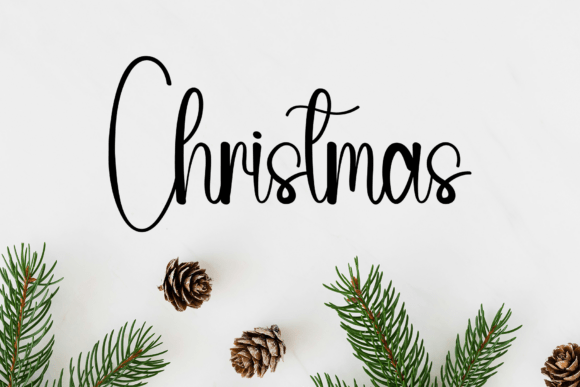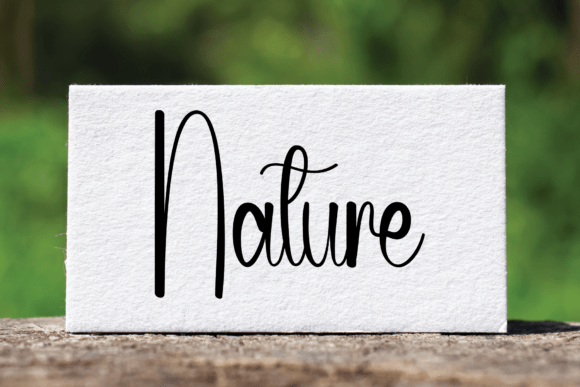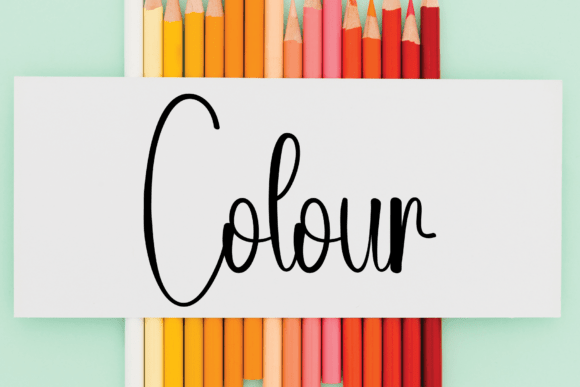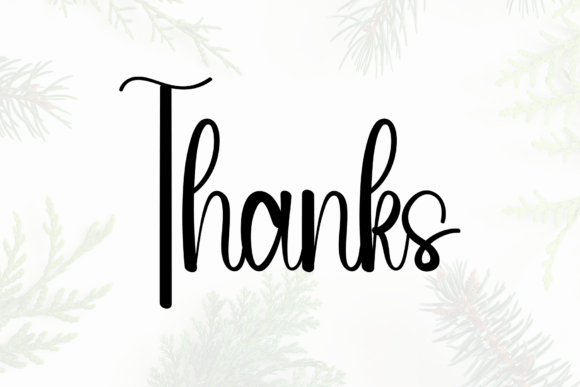
Introducing Calendar February Font: The Perfect Blend of Relaxed and Luxurious
Are you on the hunt for a font that exudes a sense of casual elegance and sophistication? Look no further than Calendar February Font, a beautiful handwritten font that is sure to elevate your designs to the next level. With its unique marker-drawn aesthetic, this font is perfect for designers and crafters looking to add a touch of personality to their work.
The Characteristics of Calendar February Font
Calendar February Font is a handwritten font that boasts a relaxed and sporty feel, making it an excellent choice for a wide range of design applications. Its marker-drawn appearance gives it a distinctive, laid-back vibe that is perfect for:
- Branding and logos: Create a lasting impression with a font that is both stylish and approachable.
- Wedding supplies: Add a touch of whimsy and romance to your wedding designs with this beautiful font.
- Greeting cards: Make your cards stand out with a font that is both elegant and casual.
- Fashion and lookbooks: Showcase your fashion designs with a font that is both luxurious and laid-back.
- Marketing promotions: Grab the attention of your audience with a font that is both stylish and attention-grabbing.
Why Choose Calendar February Font?
So, what sets Calendar February Font apart from other fonts on the market? Here are just a few reasons why designers and crafters are falling in love with this beautiful font:
- Unique aesthetic: The marker-drawn appearance of Calendar February Font gives it a distinctive look that is sure to set your designs apart.
- Versatility: This font is perfect for a wide range of design applications, from branding and logos to wedding supplies and greeting cards.
- Elegant yet casual: Calendar February Font strikes the perfect balance between elegance and casualness, making it perfect for designers who want to create luxurious yet approachable designs.
Tips for Using Calendar February Font
To get the most out of Calendar February Font, here are a few tips to keep in mind:
- Pair it with contrasting fonts: Combine Calendar February Font with a contrasting font to create visual interest and add depth to your designs.
- Experiment with colors: Don’t be afraid to experiment with different colors and textures to add an extra layer of personality to your designs.
- Use it sparingly: While Calendar February Font is beautiful, it can be overwhelming if overused. Use it sparingly to create a lasting impression.
Calendar February Font is a beautiful handwritten font that is sure to elevate your designs to the next level. With its unique marker-drawn aesthetic and relaxed yet luxurious feel, it is perfect for designers and crafters looking to add a touch of personality to their work. Whether you’re creating branding and logos, wedding supplies, or greeting cards, this font is sure to impress. So why wait? Download Calendar February Font today and start creating stunning designs that are sure to leave a lasting impression.